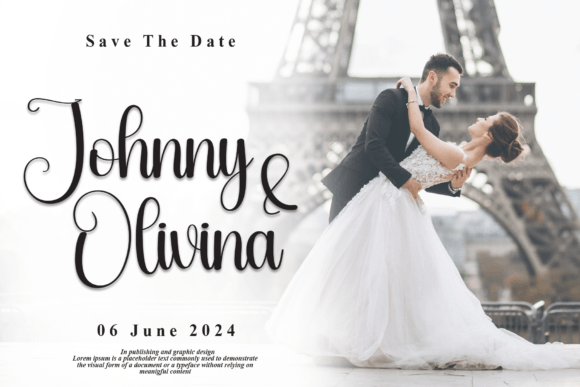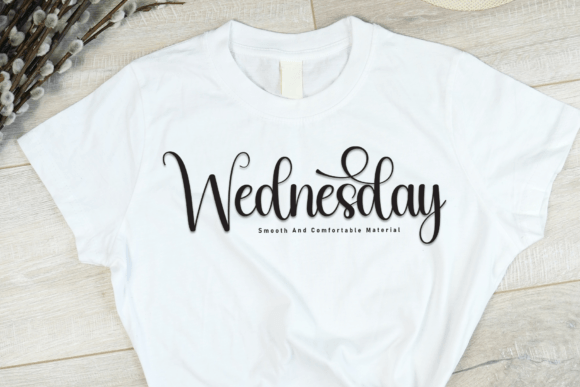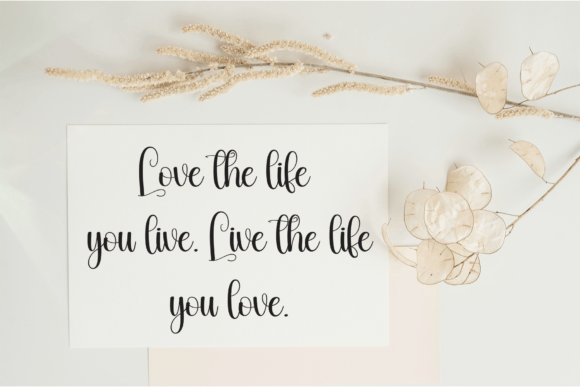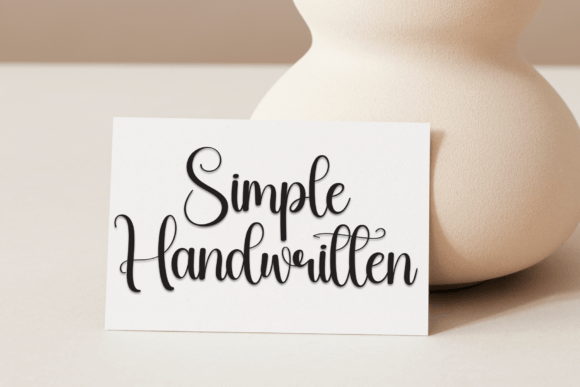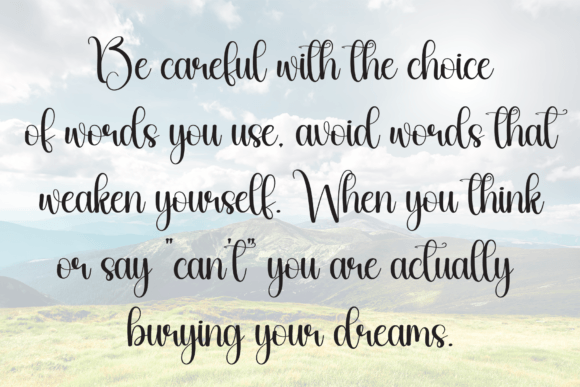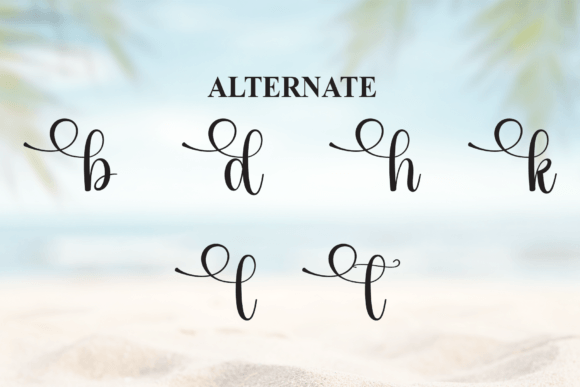
Introducing Beach Font: The Sweet and Friendly Handwritten Font for Your Creative Projects
Are you a designer, crafter, or DIY enthusiast looking for a font that can add a touch of warmth and personality to your projects? Look no further than Beach Font, a sweet and friendly handwritten font that’s perfect for a wide range of designs. With its natural and unique style, Beach Font is incredibly versatile and can be used for everything from beach-themed crafts to more abstract designs. The only limit is your imagination!
What Makes Beach Font So Special?
Beach Font is a one-of-a-kind handwritten font that’s been carefully crafted to evoke a sense of friendliness and approachability. Its natural, flowing style makes it perfect for designs that require a personal touch, such as:
- Beach-themed crafts, like seashell wind chimes or driftwood signs
- Wedding invitations, stationery, and other romantic designs
- Children’s book illustrations, stickers, and activity sheets
- Fashion and beauty branding, packaging, and advertising
- DIY projects, like hand-painted signs, wall art, and home decor
Beach Font’s unique style is characterized by its:
- Flowing, connected letters that create a sense of movement and fluidity
- Rounded, soft edges that give the font a friendly, approachable feel
- Natural, handwritten imperfections that add character and personality
How to Use Beach Font in Your Designs
Beach Font is incredibly easy to use, even if you’re not a seasoned designer. Here are a few tips to get you started:
- Pair Beach Font with bold, geometric shapes for a striking contrast
- Use Beach Font in combination with images of natural textures, like wood or sand
- Experiment with different colors, like pastel hues or bold brights, to add personality to your design
- Try using Beach Font in a variety of sizes and styles, from bold and playful to delicate and whimsical
The Benefits of Using Beach Font
So why choose Beach Font for your next design project? Here are just a few benefits:
- Unique and eye-catching: Beach Font is a one-of-a-kind font that will help your designs stand out from the crowd
- Versatile: Beach Font can be used for a wide range of designs, from beach-themed crafts to more abstract projects
- High-quality: Beach Font is a high-quality font that’s been carefully crafted to ensure smooth, clear lines and a professional finish
Beach Font is a sweet and friendly handwritten font that’s perfect for designers, crafters, and DIY enthusiasts. With its natural and unique style, Beach Font is incredibly versatile and can be used for a wide range of designs. Whether you’re creating beach-themed crafts, wedding invitations, or children’s book illustrations, Beach Font is the perfect choice. So why wait? Download Beach Font today and start creating your own unique designs!